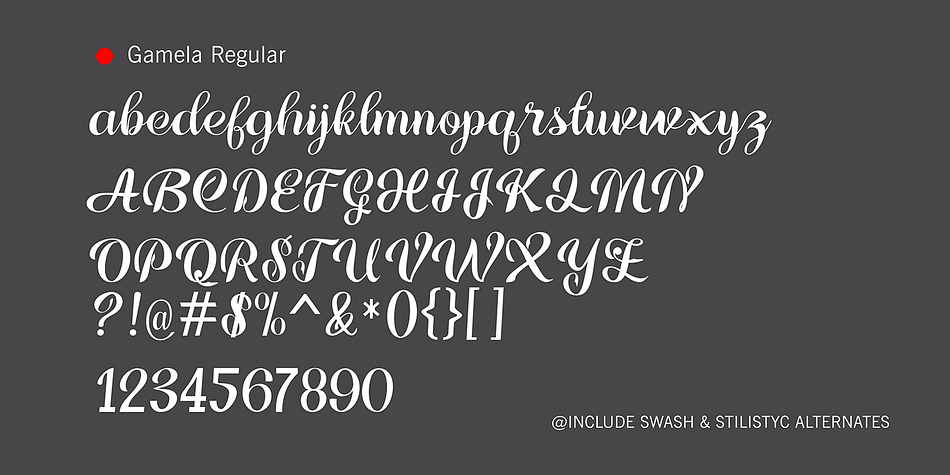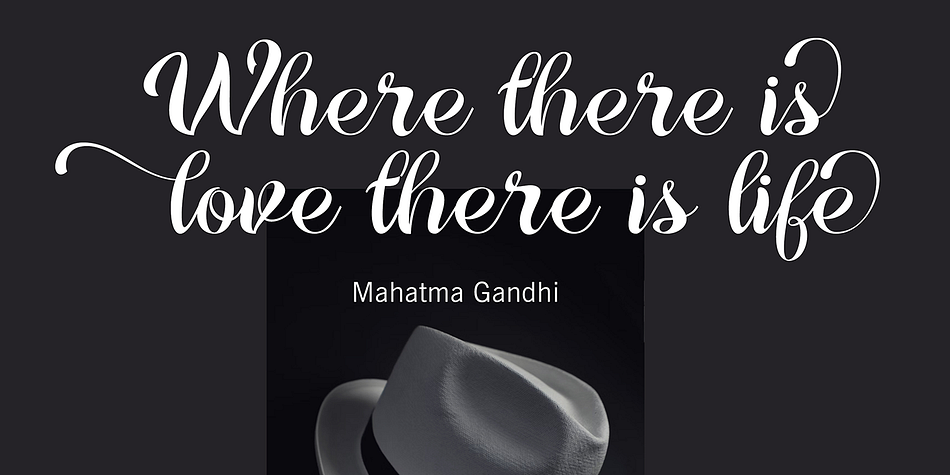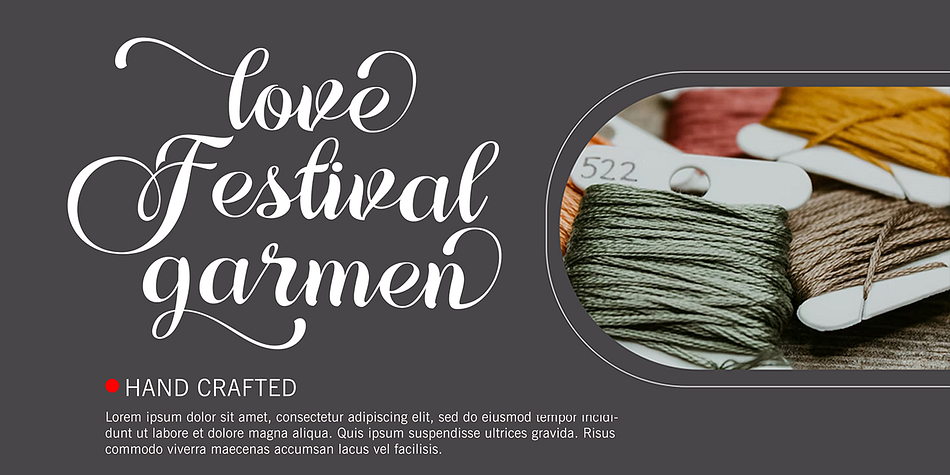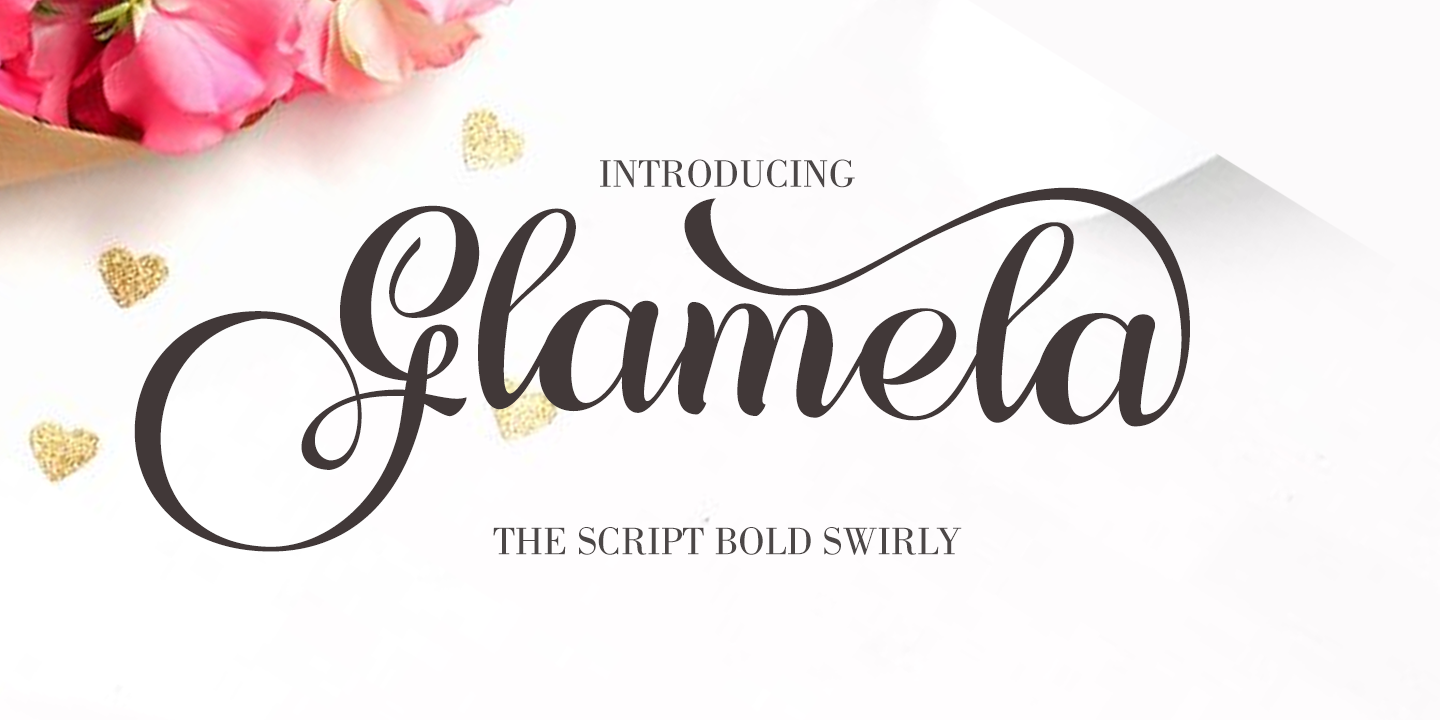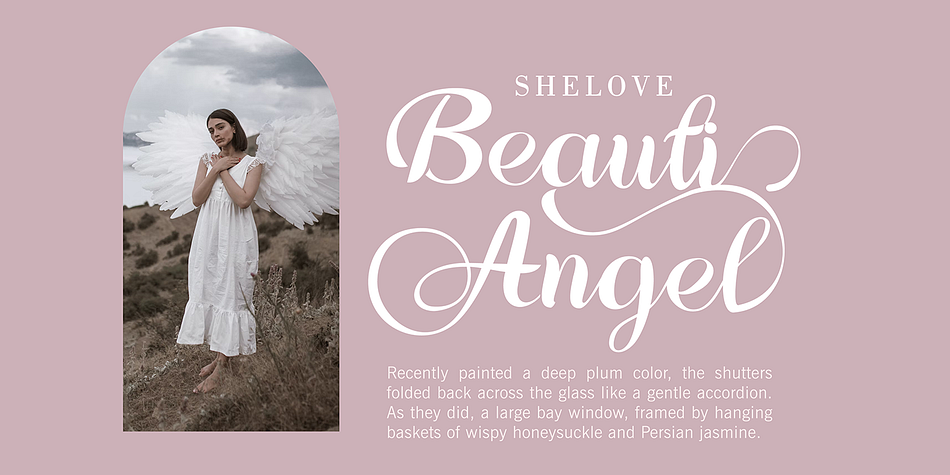
Glamela
Glamela is a modern calligraphy font family published by Gatype.
Glamela Script Script Modern Calligraphy, the newest you can get now! With an updated hand calligraphy model with special glyphs that have been given a combination of fantasy and handwritten ink. This font will look beautiful on all designs, Wedding designs, branding materials, blog titles, quotes and invitations, business cards.